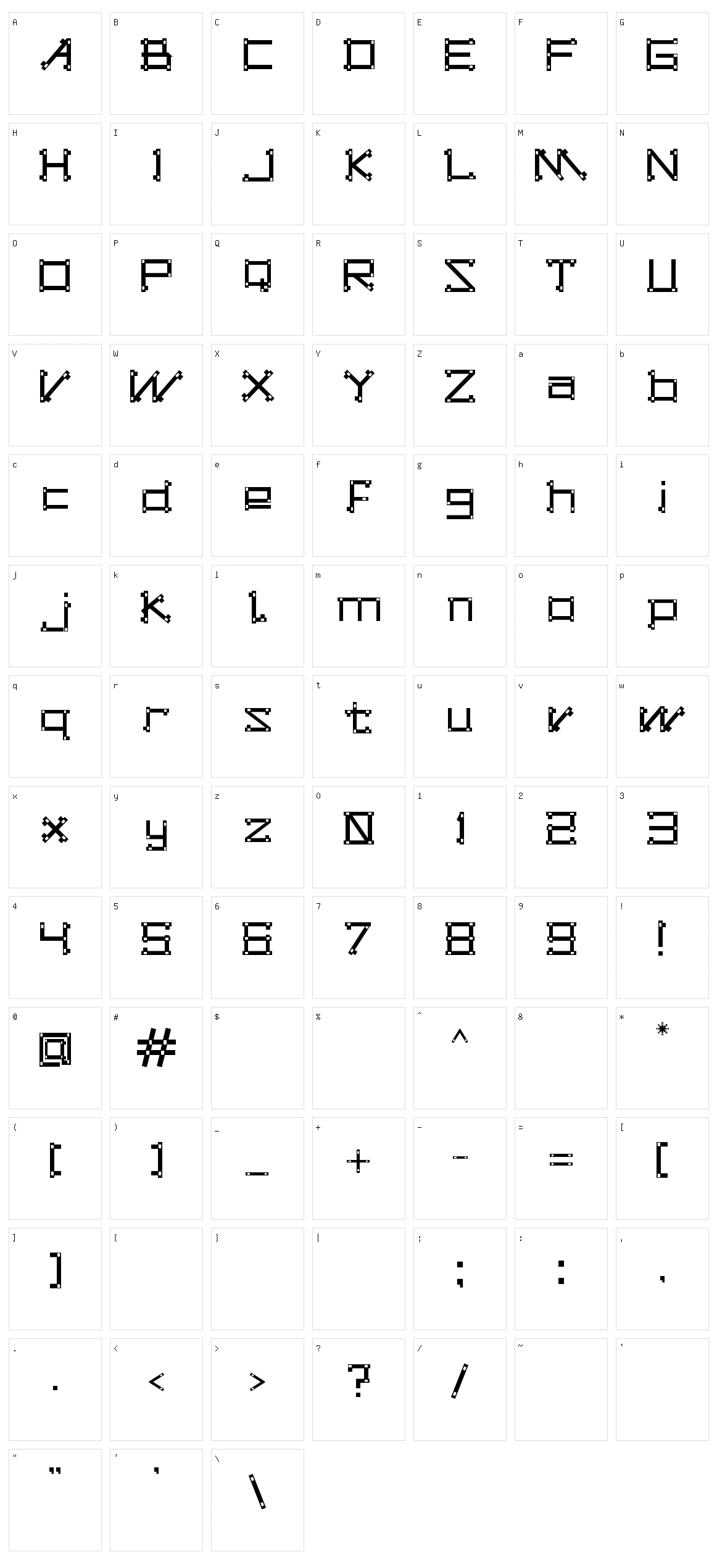
The free font Dogon's Tribe is carefully designed by Fikri Hidayat, showcasing a thoughtful balance of creativity and usability and falls under the Square font style. When you download the ZIP file, it contains only 8.58 KB of font files, making it lightweight and quick to download. Please review the license details below to understand permitted usage and distribution rights. If license information is not available, we recommend using this font for personal projects only or contacting the author directly for commercial usage permissions.